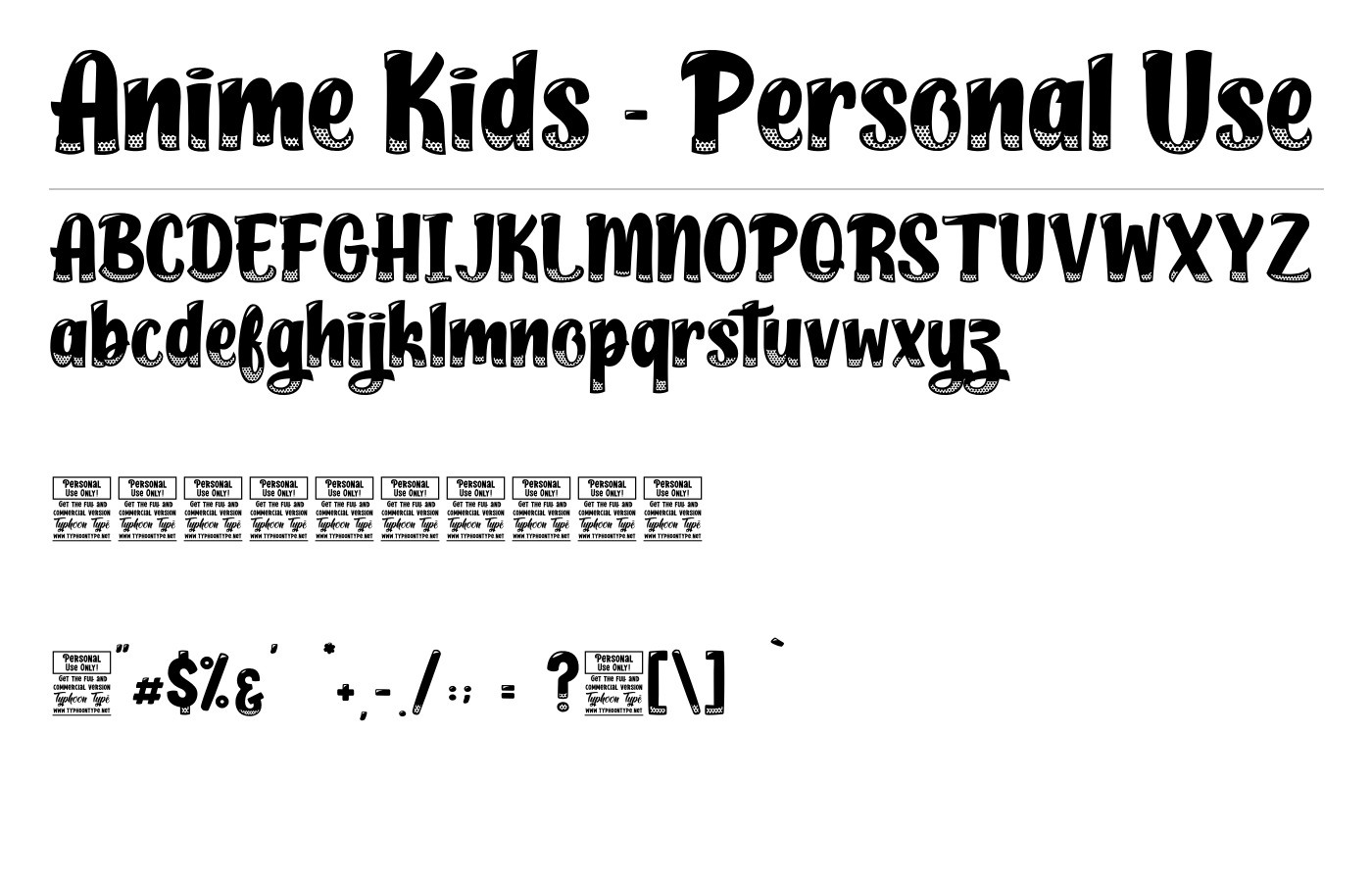
Anime Kids is a playful and bold display font with a chunky, rounded sans serif style that features a charming dotted texture at the bottom of each letter. Its high x-height and whimsical shapes make it ideal for fun, youthful designs such as children’s books, posters, and playful branding. This font brings an energetic, friendly personality that works best in headlines and creative projects aimed at a joyful, casual audience.
Anime Kids - Personal Use Font
About Anime Kids - Personal Use Font
| Font family | Anime Kids - Personal Use Font |
| Designer | Typhoon Type™ - Suthi Srisopha |